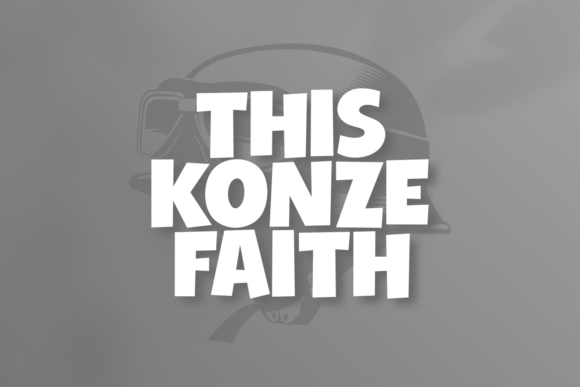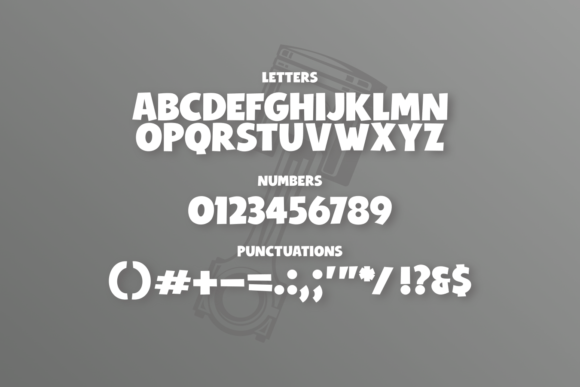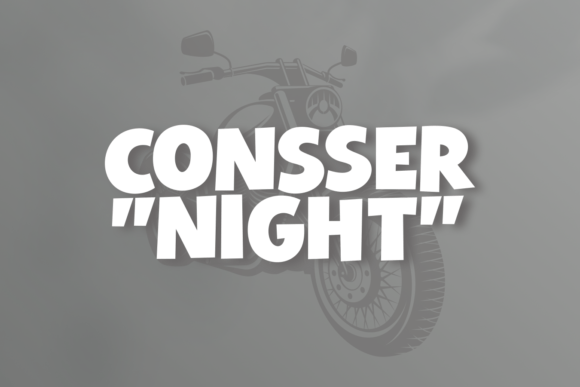
Introduction to Kohsine Font
Kohsine is a new and fresh font, with a childish style making it look very funky.
This font is inspired by old styles and then brought back with a modern all-caps touch, this would be great for logos, branding, posters, titles, comics, music, and other designs Donโt wait, grab it now for a design that stands out.
Key Features of Kohsine Font